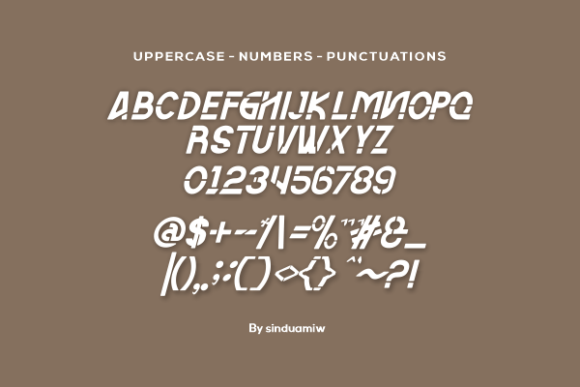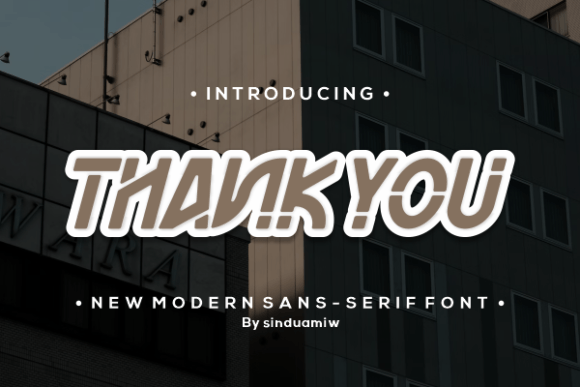
The Quest for the Perfect Font: Discovering Bradin
I still remember the frustration of working on a design project, hours spent searching for the ideal font, only to end up with something that just didn’t quite fit. My client wanted a fresh, unique look, but everything I tried seemed either too bland or too over-the-top. That’s when I stumbled upon **Bradin Font**, a cool and modern sans serif font that instantly caught my attention. Its trendy vibe worked great for my project, and I knew I had to share it with fellow designers, crafters, and creative hobbyists.
An Honest Review of Bradin Font
What I Love About Bradin ✨
• ✅ **Clean and Modern Design**: Bradin boasts a sleek, contemporary look that’s perfect for designs that require a bit of sophistication.
• ✅ **Versatility**: This font is incredibly versatile, suitable for everything from branding and advertising to packaging and digital media.
• ✅ **Easy to Read**: Despite its modernity, Bradin remains highly legible, making it an excellent choice for body text and headings.
• ✅ **OpenType Features**: Bradin comes with a range of OpenType features, including stylistic alternates and glyphs, which can add an extra layer of creativity to your designs.
While Bradin is an excellent font, it’s not without its quirks. For instance, ⚠️ some users might find the font a bit too condensed for certain applications, which could affect readability in smaller sizes. Additionally, ⚠️ the font’s modernity might not be suitable for more traditional or vintage designs.
Exploring Alternatives to Bradin Font
The Story Behind Bradin Font
The creation of Bradin Font is a story of innovation and design passion. While the actual origins might not be well-documented, it’s clear that the designer aimed to create a font that embodies modernity and versatility. Inspired by the geometric shapes and clean lines of contemporary architecture and design, Bradin was crafted to meet the needs of today’s designers.
Font Name Bradin Font
Author sinduamiw
Is Bradin suitable for body text? Yes, Bradin is highly legible and can be used for body text, especially in digital formats.
Does Bradin support OpenType features? Yes, Bradin comes with a range of OpenType features, including stylistic alternates and glyphs, which can enhance your typography.
Is Bradin a variable font? Information about Bradin being a variable font isn’t specified, but it’s always good to check the font’s details for the most accurate information.
Bradin Font is more than just a typeface; it’s a design tool that can elevate your projects with its modern and fresh aesthetic. Whether you’re working on a branding campaign, crafting a unique piece of art, or simply exploring typography, Bradin offers a versatile and stylish solution.